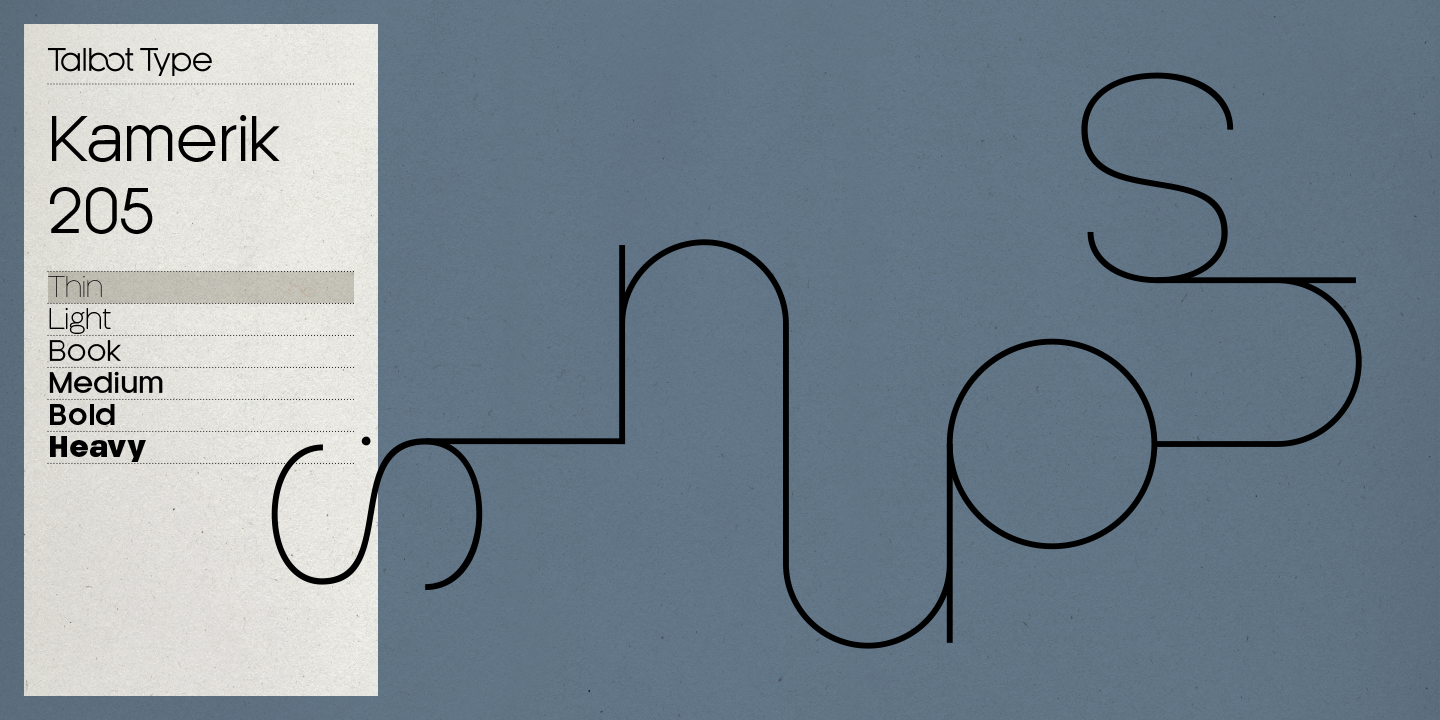
Kamerik 205 Font is a superb contemporary sans-serif typeface, meticulously crafted for optimal clarity, versatility, and a distinctly modern aesthetic. This highly functional font is perfectly suited for a vast array of professional and creative applications. Imagine Kamerik 205 Font providing crisp and legible body text for complex reports, enhancing the user experience in sleek digital interfaces, or adding a sophisticated touch to editorial layouts in design and architecture magazines. It excels in web design, mobile applications, and corporate branding where a clean, approachable, yet authoritative presence is paramount. Its balanced proportions and open character forms also make it an excellent choice for impactful headlines, informative presentations, and comprehensive branding across all media, ensuring your message is conveyed with precision and contemporary elegance.
What makes Kamerik 205 Font so exciting is its exceptional ability to blend geometric precision with subtle humanist influences, resulting in a highly versatile and incredibly readable typeface. Unlike some rigid sans-serifs, Kamerik 205 Font feels warm and inviting, making it easy on the eyes even in long-form text. It projects an aura of trustworthiness, efficiency, and understated sophistication, making it an excellent choice for businesses and individuals who want to communicate a sense of modern competence and forward-thinking design. This font truly performs as a versatile workhorse, offering both aesthetic beauty and robust functionality that can elevate any project, from professional documents to cutting-edge digital experiences.
Kamerik 205 Font typically boasts an extensive family, providing designers with unparalleled flexibility for any project. You can expect a wide array of weights, ranging from an airy thin to a commanding black, along with corresponding italic styles. Many Kamerik 205 Font families also include condensed or expanded versions, as well as multiple numeral styles and comprehensive OpenType features, such as ligatures and alternative characters. This rich selection ensures that Kamerik 205 Font can seamlessly handle virtually any typographic challenge, allowing for harmonious visual hierarchies and consistent branding across all your projects, from prominent headlines to detailed body text.